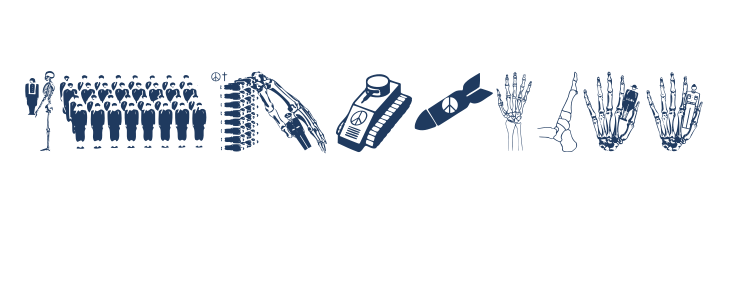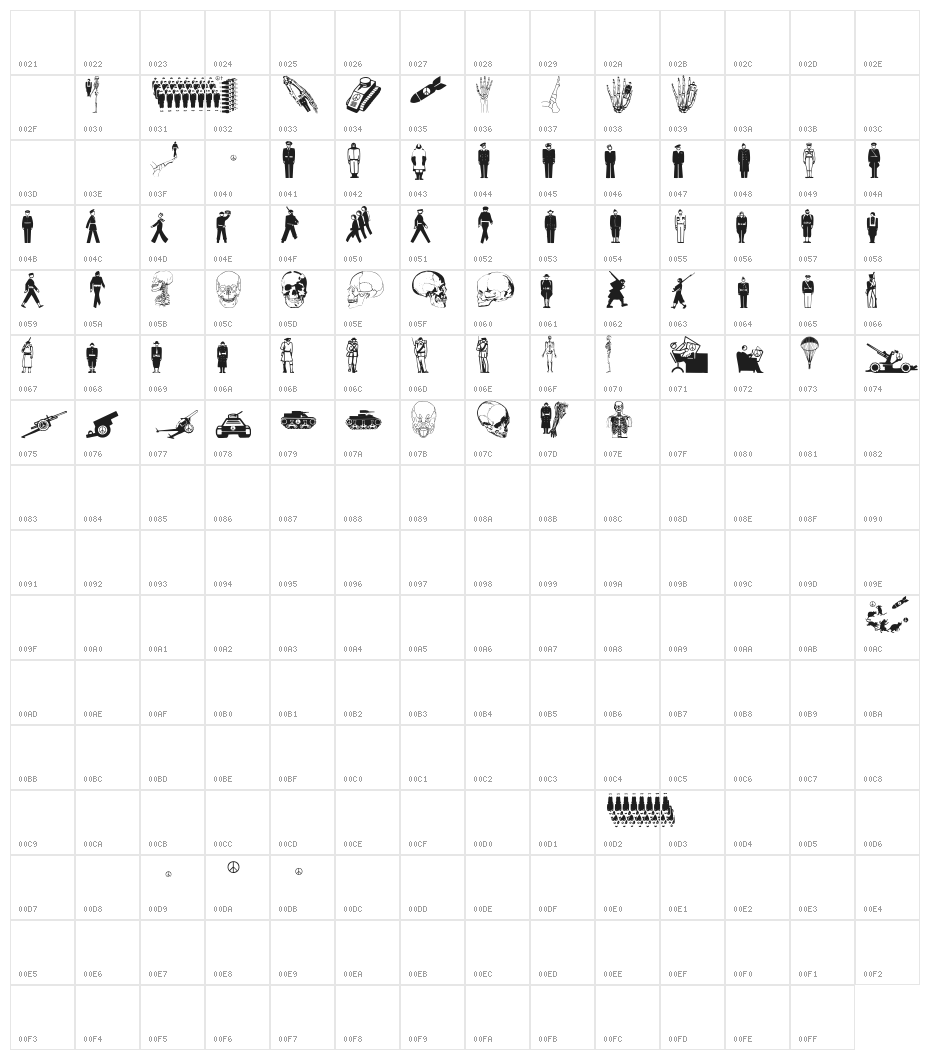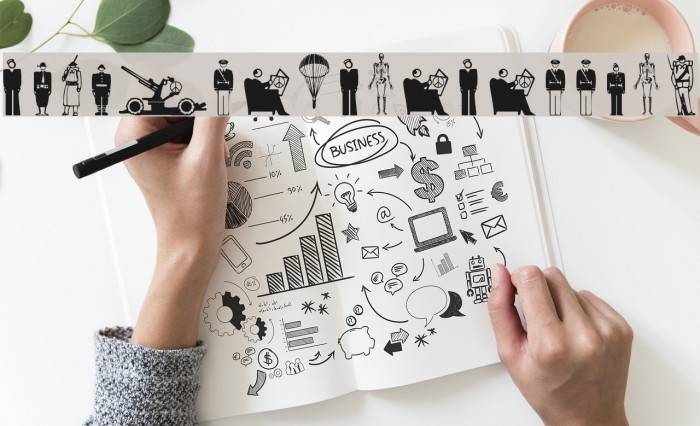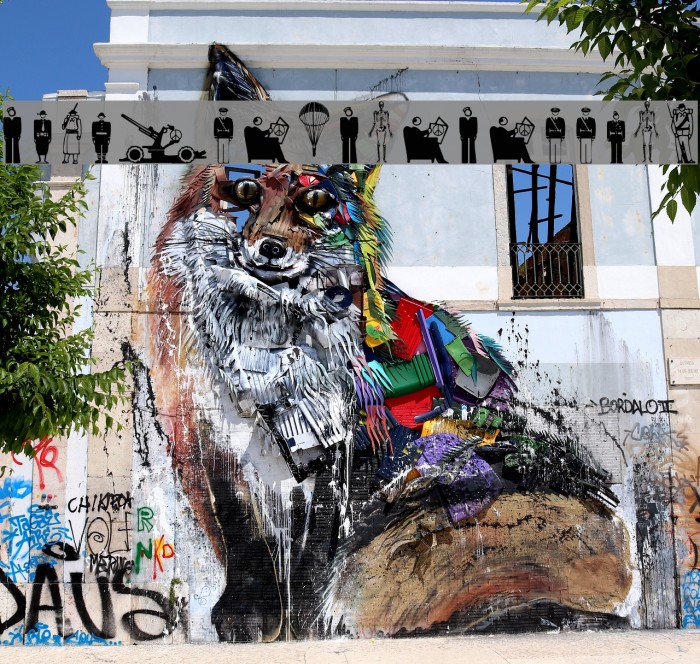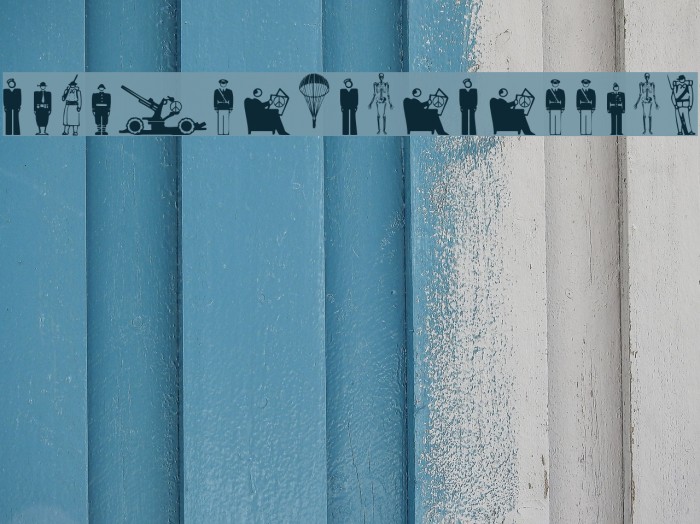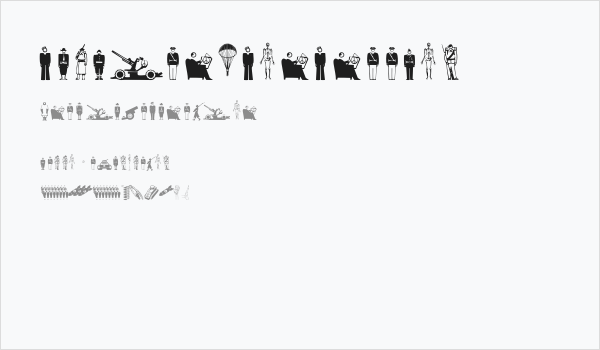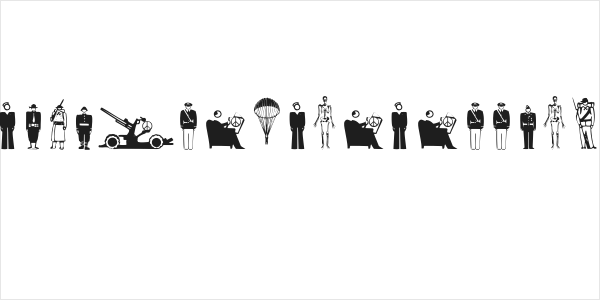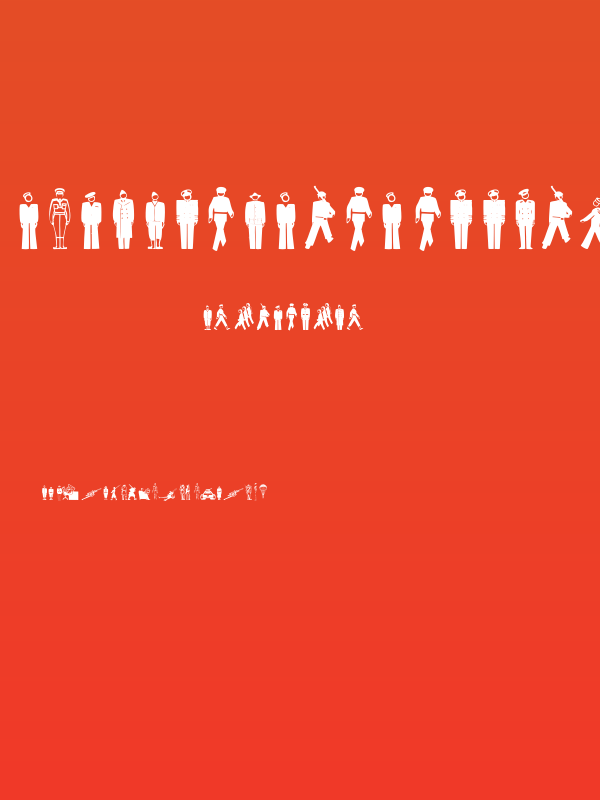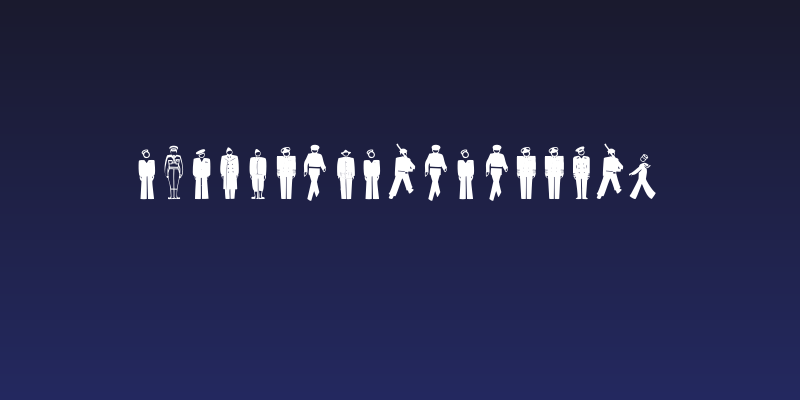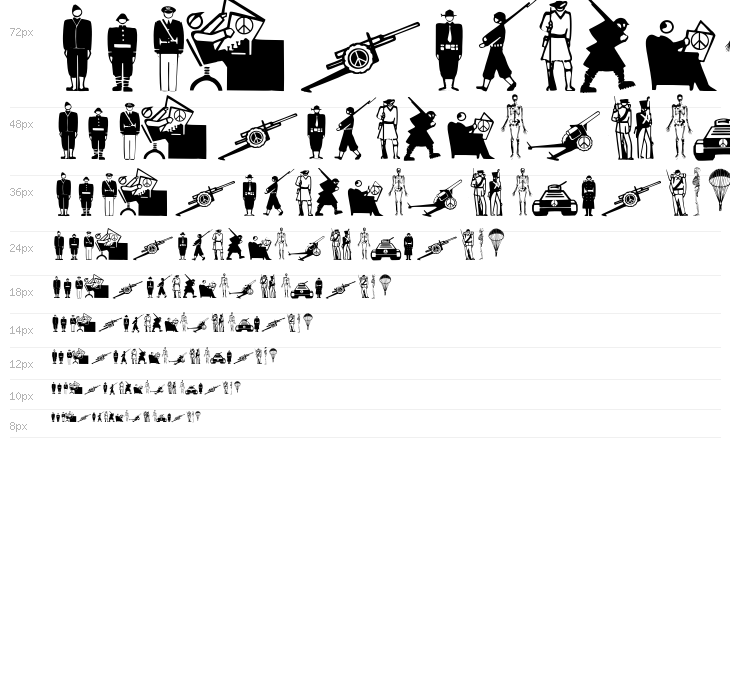
FightersForFreedom Font
FightersForFreedom Description
A pictogram-style dingbat set featuring various military and wartime figures, vehicles, weapons, and anatomical illustrations, all rendered in bold, simplified black-and-white silhouettes with minimal detail and strong geometric forms.
| Overall Style | Decorative, Modern, Pictographic |
| Use Case | Icons, Illustrations, Thematic graphics |
| Proposed Projects | Posters, educational materials, infographics, editorial illustrations, protest art. |